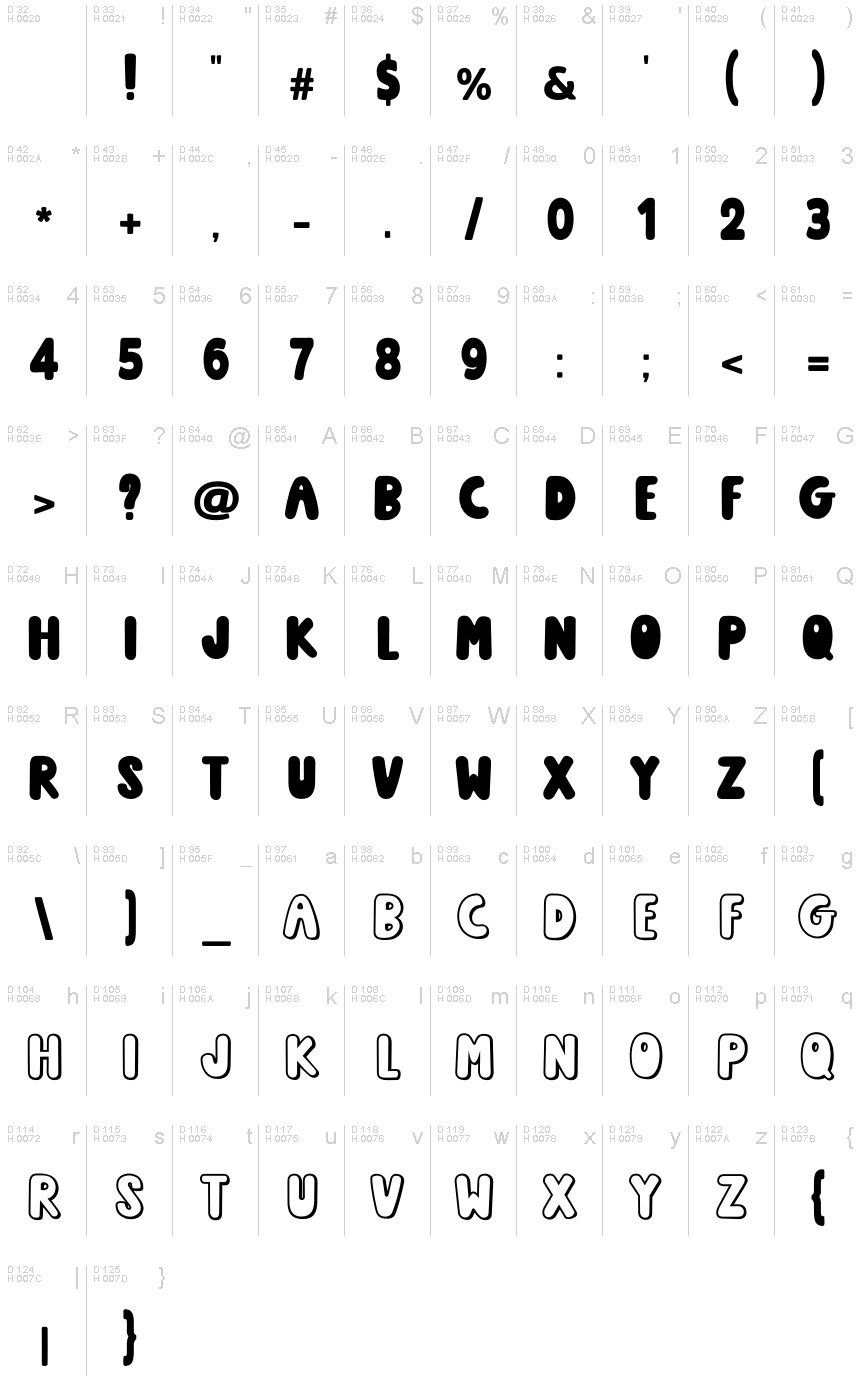
RetroVibes
RetroVibes font, designed by UI Creative, exudes a playful charm with its bold, groovy style. Its lively character features rounded edges and unique letter forms that draw the eye, evoking a sense of nostalgia while maintaining a fresh aesthetic.
The font's robust presence makes it ideal for projects seeking to infuse energy and vibrancy. Perfect for event posters, music festivals, or retro-themed branding, RetroVibes commands attention without dominating the design. Its distinctive flair ensures that any message is delivered with personality and warmth.
Whether used in large formats or as an accent in graphic designs, RetroVibes captures the essence of fun and creativity—making it an excellent choice for those looking to stand out with style.